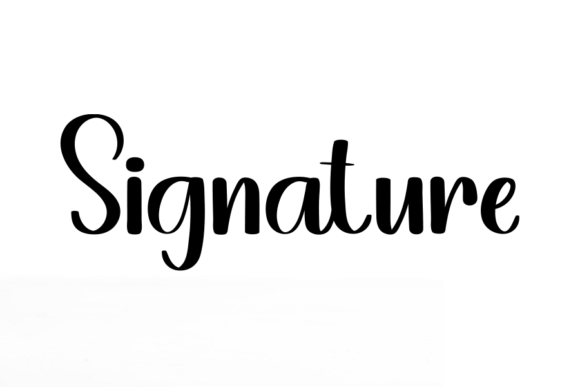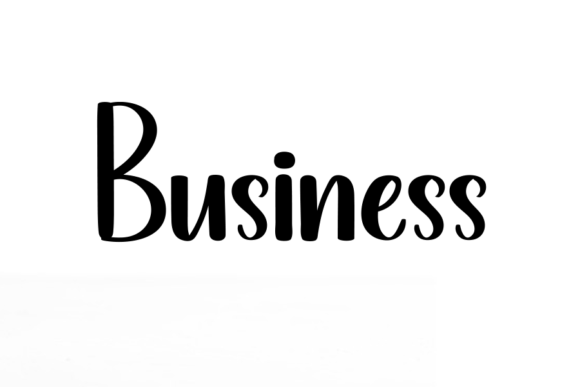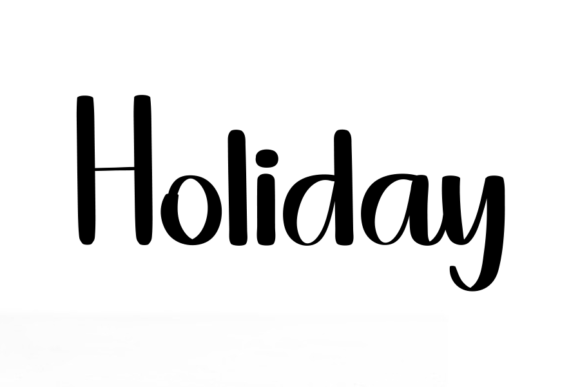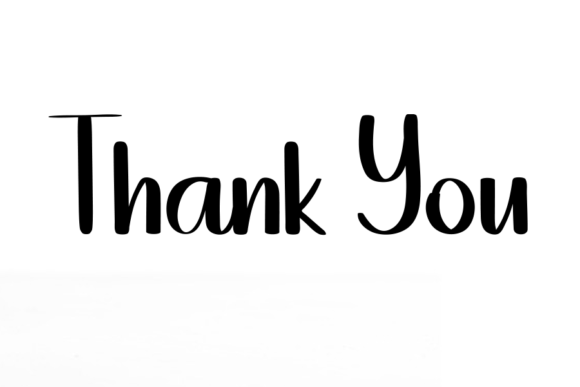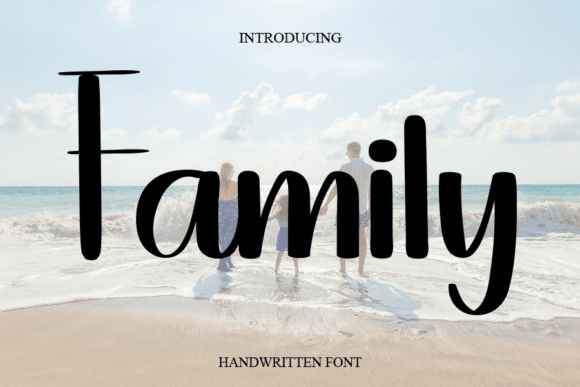
Introducing Family Font: Elevate Your Designs with Timeless Elegance
Are you tired of using generic fonts that lack personality in your design projects? Look no further than Family Font, a trendy handwritten font that brings a contemporary atmosphere and impeccable form to your creations. Inspired by timeless classic calligraphy, Family Font is the perfect addition to add elegance and class to any design.
The Inspiration Behind Family Font
Family Font draws its inspiration from the world of classic calligraphy, where the art of beautiful handwriting has been perfected over centuries. The font’s creator aimed to capture the essence of traditional calligraphy and infuse it with a modern twist, making it suitable for a wide range of design applications. The result is a font that exudes sophistication, refinement, and a touch of nostalgia.
Key Features of Family Font
- Trendy Handwritten Style: Family Font boasts a stylish handwritten appearance that adds a personal touch to your designs.
- Contemporary Atmosphere: The font’s clean lines and modern aesthetic ensure it fits seamlessly into contemporary design trends.
- Impeccable Form: Each letterform has been carefully crafted to exhibit flawless proportions and spacing, making it a joy to read and behold.
- Timeless Classic Inspiration: By drawing from classic calligraphy, Family Font achieves a sense of enduring elegance that won’t go out of style.
Whether you’re a professional designer or a crafting enthusiast, Family Font is an excellent choice for various projects. Here are some ideas to get you started:
- Wedding Invitations and Stationery: Add a touch of luxury and romance to your wedding designs with Family Font.
- Branding and Packaging: Elevate your brand’s visual identity with a font that exudes sophistication and refinement.
- Digital and Print Media: Use Family Font in your blog posts, social media graphics, brochures, and other marketing materials to create a cohesive and stylish visual brand.
- Crafting and DIY Projects: Add a personal touch to your handmade crafts, such as journals, planners, and cards, with the elegant lines of Family Font.
Tips for Using Family Font Effectively
To get the most out of Family Font, consider the following tips:
- Pair with Neutral Backgrounds: Allow Family Font to shine by pairing it with neutral backgrounds that won’t compete for attention.
- Experiment with Colors: Try Family Font with a range of colors to find the perfect combination that suits your design’s mood and atmosphere.
- Mix with Other Fonts: Combine Family Font with complementary fonts to create visual interest and add depth to your designs.
Family Font is a versatile and elegant handwritten font that brings a touch of timeless sophistication to your design projects. With its impeccable form, contemporary atmosphere, and classic inspiration, it’s the perfect choice for designers and crafters looking to elevate their creations. Download Family Font today and discover the power of beautiful typography in your designs!